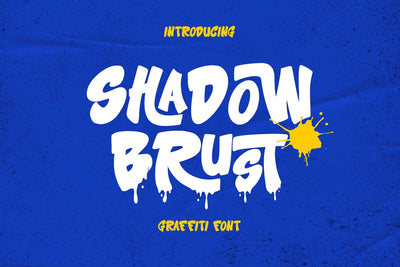
Shadow Brust - Dripping Graffiti Font
Shadow Burst is a bold and expressive decorative graffiti font featuring two unique styles: solid and dripping. Designed to bring an urban and edgy vibe to your projects, this font captures the raw energy of street art. It also includes ligatures that enhance the flow and power of your text, making it perfect for posters, album covers, streetwear branding, and any design that demands a rebellious and artistic touch.
- Graffiti Characters looks